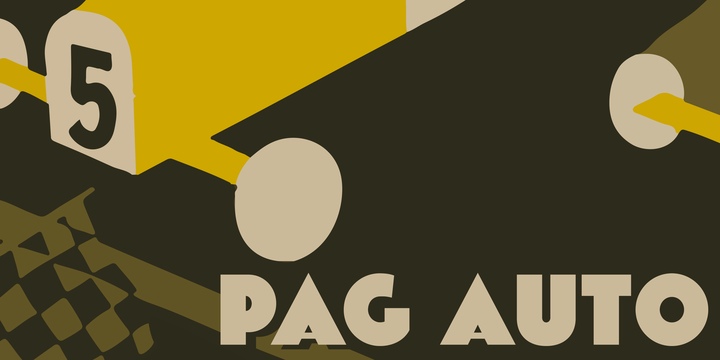
PAGAuto Font
PAGAuto Font is perfect for automotive branding, car dealership signage, racing team identities, auto parts packaging, motorcycle graphics, vehicle manufacturer communications, automotive trade shows, garage and service center materials, car magazine headlines, racing event posters, transportation company logos, and automotive industry publications.
What makes PAGAuto Font exciting is its dynamic power that captures the speed, precision, and engineering excellence of the automotive industry through bold, streamlined letterforms. This high-performance typeface embodies the thrill of automotive innovation, combining mechanical precision with aerodynamic elegance that resonates with enthusiasts and industry professionals alike. The font's commanding presence and technical character convey reliability and performance while maintaining the visual impact essential for competitive automotive markets. Its energetic personality makes it perfect for brands that want to communicate power, innovation, and the exhilarating experience of automotive excellence and engineering mastery.
The PAGAuto Font family includes regular, medium, and bold weights, featuring speed-inspired alternates, dynamic ligatures, and automotive design elements. The character set incorporates racing symbols, performance numerals, and technical punctuation marks that enhance the font's automotive character and provide designers with comprehensive motorsport and automotive design solutions.